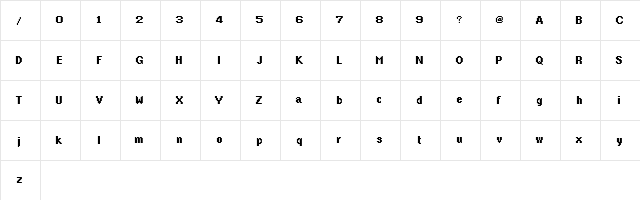
Final Fantasy 1 PSXa Regular
Design Context for Final Fantasy 1 PSXa Typeface
Final Fantasy 1 PSXa takes a measured approach to typography — its balanced proportions and neutral character make it a reliable workhorse for both digital and print work.